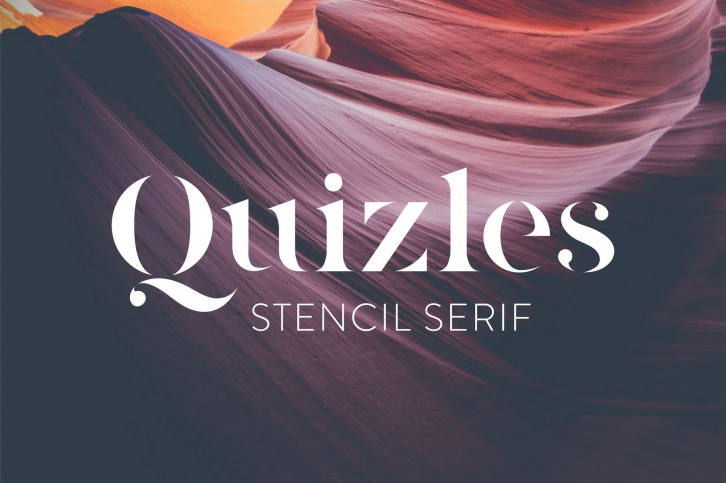
Quizles is a trendy and unique font with an authentic style. It was designed by Struvictory.art and it's a great choice for creative people who need such a font. It was released on March 16, 2020 and the file size is 1.31 MB. Quizles will add an organic vibe to any design idea!